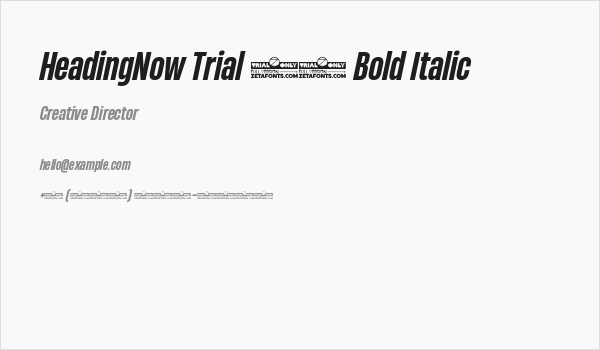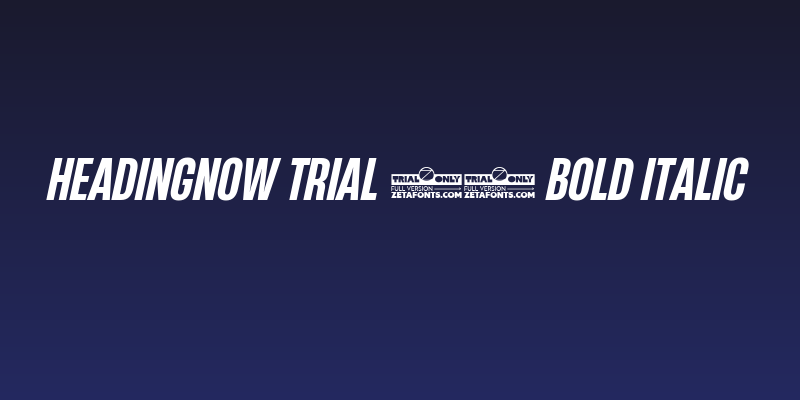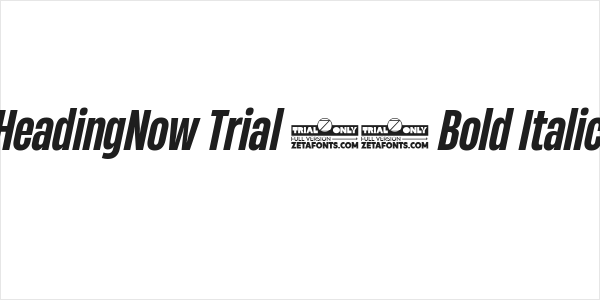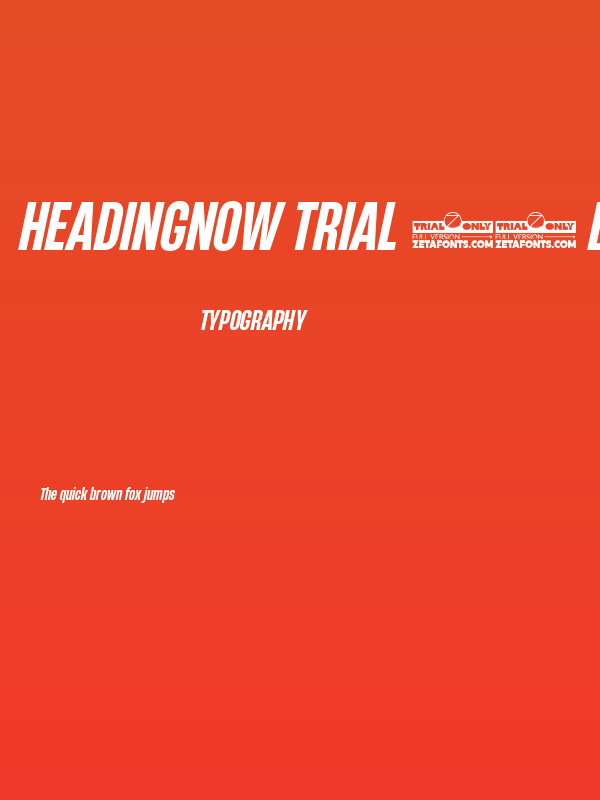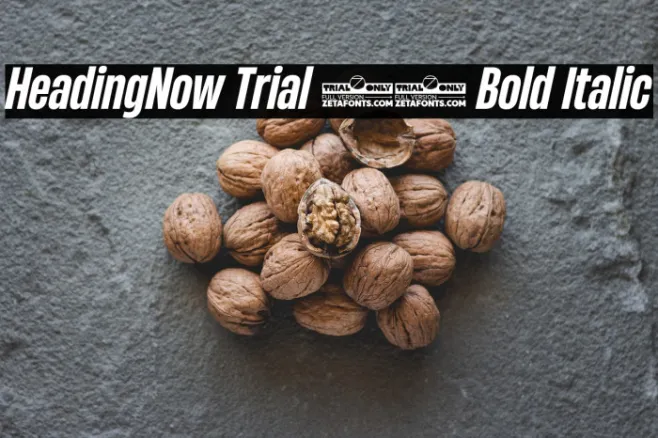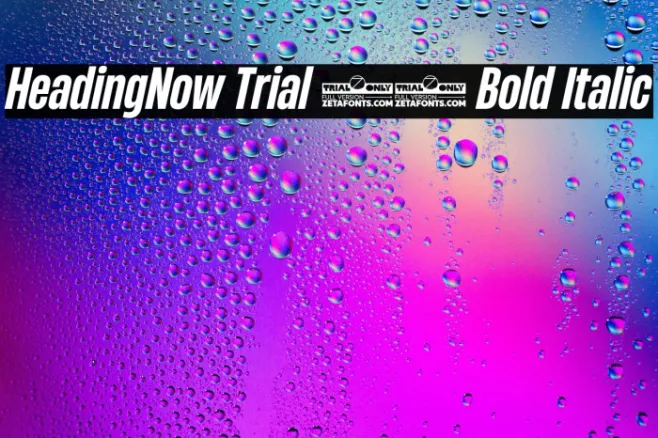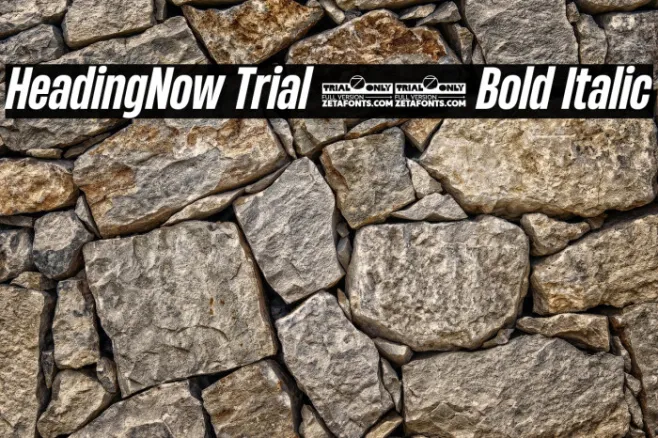
HeadingNow Trial 46 Bold Italic Font
HeadingNow Trial 46 Bold Italic Description
This font features a bold and italicized style, characterized by its strong and dynamic appearance. The letters are slightly slanted, adding a sense of movement and energy. The strokes are thick and consistent, providing a robust and impactful look. The uppercase and lowercase letters maintain a uniform width, contributing to a cohesive and structured design. The numerals and special characters are designed to match the boldness of the alphabet, ensuring a harmonious overall appearance. This font is ideal for making a statement and grabbing attention.
| Proposed Projects | Ideal for headlines, posters, branding, and any project requiring a bold statement. |